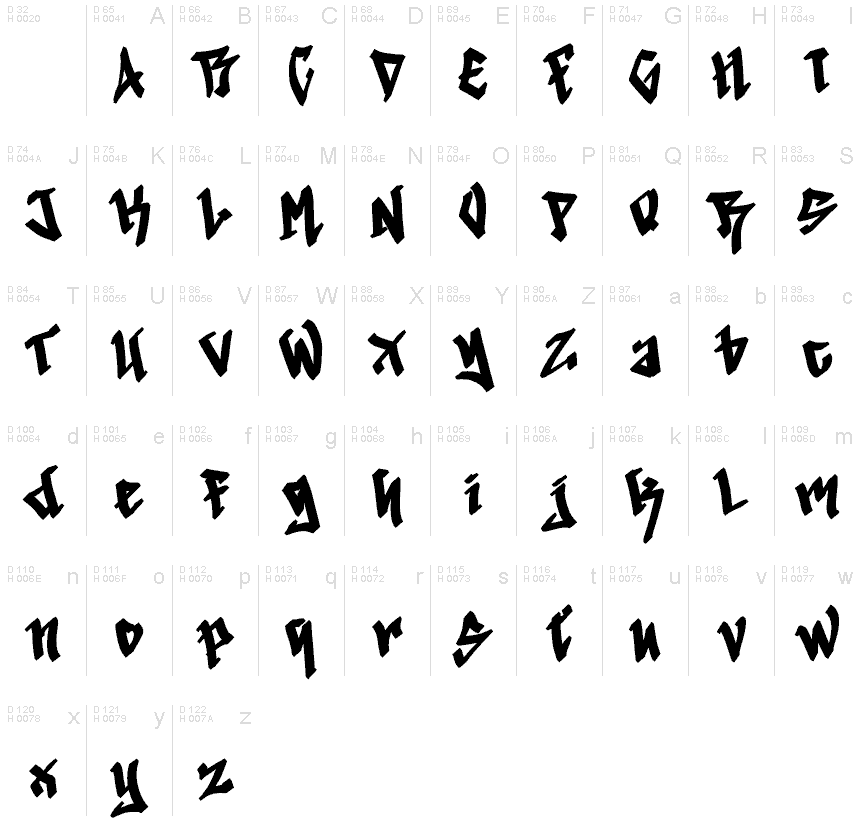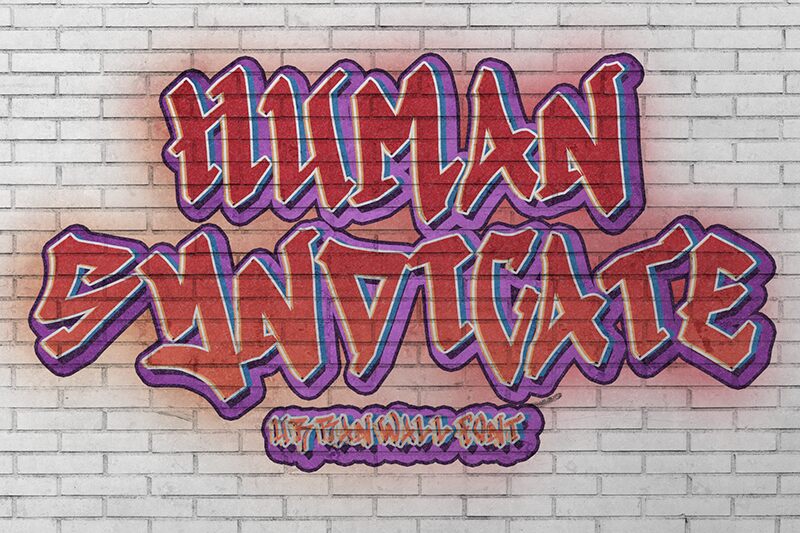
Human Syndicate - 1
The style of fonts influences how they are used in design. While Human Syndicate-1, a graffiti font with a bold weight by Yoga Letter, carries the style of grunge and punk, you can still incorporate it in elegant and classy designs.
However, it would also be appropriate for rebellious and nonconformist designs. The rough style, rough edges, and rough lines of the letters and numerals of the font can be used in graphic design, movie titles, and tattoo designs.
Human Syndicate-1 comes with the attitude, swagger, style, and class required for all projects where it’s included.